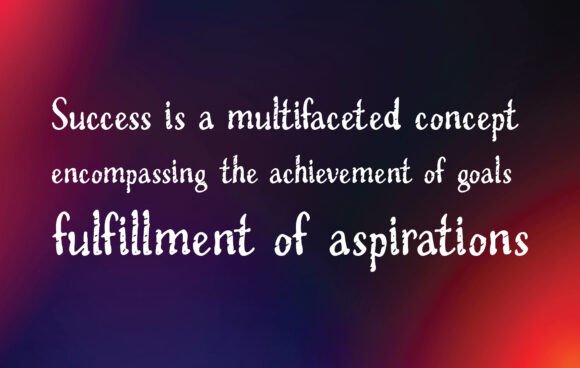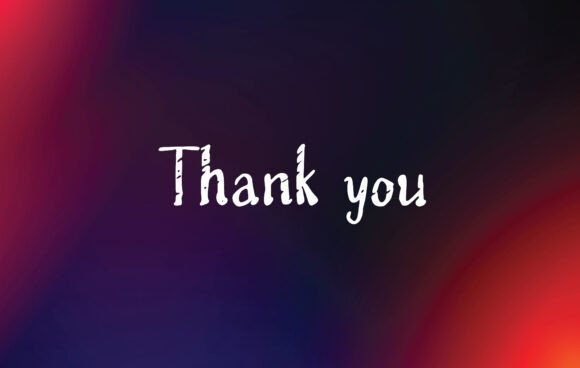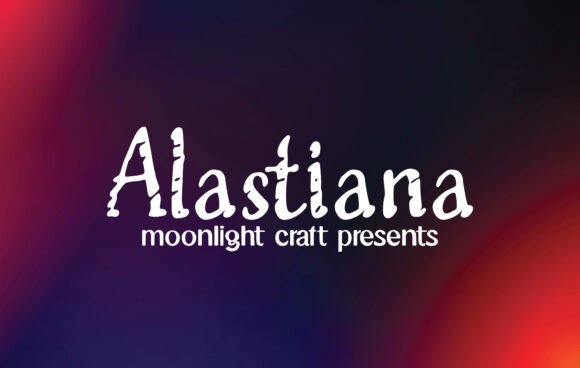
The Alastiana Font: A Creative Powerhouse for Designers and Crafters
I’ll never forget the moment I stumbled upon the Alastiana font while working on a branding project for a client’s handmade jewelry business. I had tried countless fonts, but none seemed to capture the perfect blend of elegance and playfulness that my client was looking for. That was until I discovered Alastiana – a lovely and beautiful handwritten font that instantly elevated my design game.
As a designer, I’m always on the lookout for fonts that can help me create stunning visuals with ease. Here’s what I love about Alastiana:
- ✨ Unique and eye-catching design: Alastiana’s handwritten style is both elegant and playful, making it perfect for a wide range of creative projects.
- ✅ Highly versatile: This font can be used for logos, branding, quotes, and so much more – the possibilities are endless!
- 💫 Excellent for digital and print use: Alastiana looks great on both screen and paper, making it a great choice for designers who work across multiple mediums.
While Alastiana is an amazing font, it’s not without its quirks. Here are a few things to keep in mind:
- 🤔 Some letters may require manual kerning: As with any handwritten font, you may need to adjust the spacing between certain letters to get the perfect look.
- ⚠️ Limited use of all-caps: While Alastiana does include all-caps letters, they may not be as stylized as the lowercase letters – use with caution.
The Story Behind Alastiana: A Designer Inspiration
Alastiana was created by a talented font designer who wanted to craft a font that would inspire creativity and bring a touch of elegance to any design project. With its unique blend of playfulness and sophistication, Alastiana is the perfect choice for designers and crafters looking to elevate their work.
| What type of projects is Alastiana best suited for? | Alastiana is perfect for a wide range of creative projects, including logos, branding, quotes, and more. |
| Is Alastiana available in multiple languages? | Alastiana may not support all languages, but it does include a range of characters and glyphs to help you create beautiful text. |
| Can I use Alastiana with other fonts in my design? | Absolutely! Alastiana pairs well with a variety of fonts – feel free to experiment and find the perfect combination for your project. |